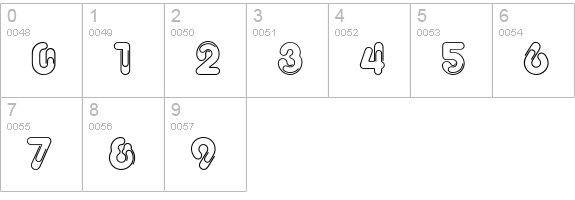
PaperClip Font Details
Introducing PaperClip font, a unique and captivating typeface that will add a touch of creativity to your designs. With its playful yet sophisticated design, PaperClip is perfect for a wide range of projects, from branding and advertising to social media graphics and invitations. This free font offers a delightful blend of modern and hand-drawn elements, resulting in a truly eye-catching visual experience. Its clean lines and smooth curves make it easy to read, while its charming details and subtle quirks add a sense of personality and warmth. Whether you're working on a professional project or a personal endeavor, PaperClip font is sure to elevate your designs to new heights. Its versatility allows it to be used in a variety of contexts, from bold headlines to elegant body text. And the best part? PaperClip font is freely available to download at FontsMarket.com! You can now enjoy the beauty and versatility of this amazing font without any constraints. With just a few clicks, you'll have access to a whole new world of design possibilities. So why wait? Download PaperClip font today and unleash your creativity like never before. Let this stunning typeface bring your ideas to life and make a lasting impression on your audience. Embrace the freedom of expression with PaperClip font, and watch your designs soar to new heights.